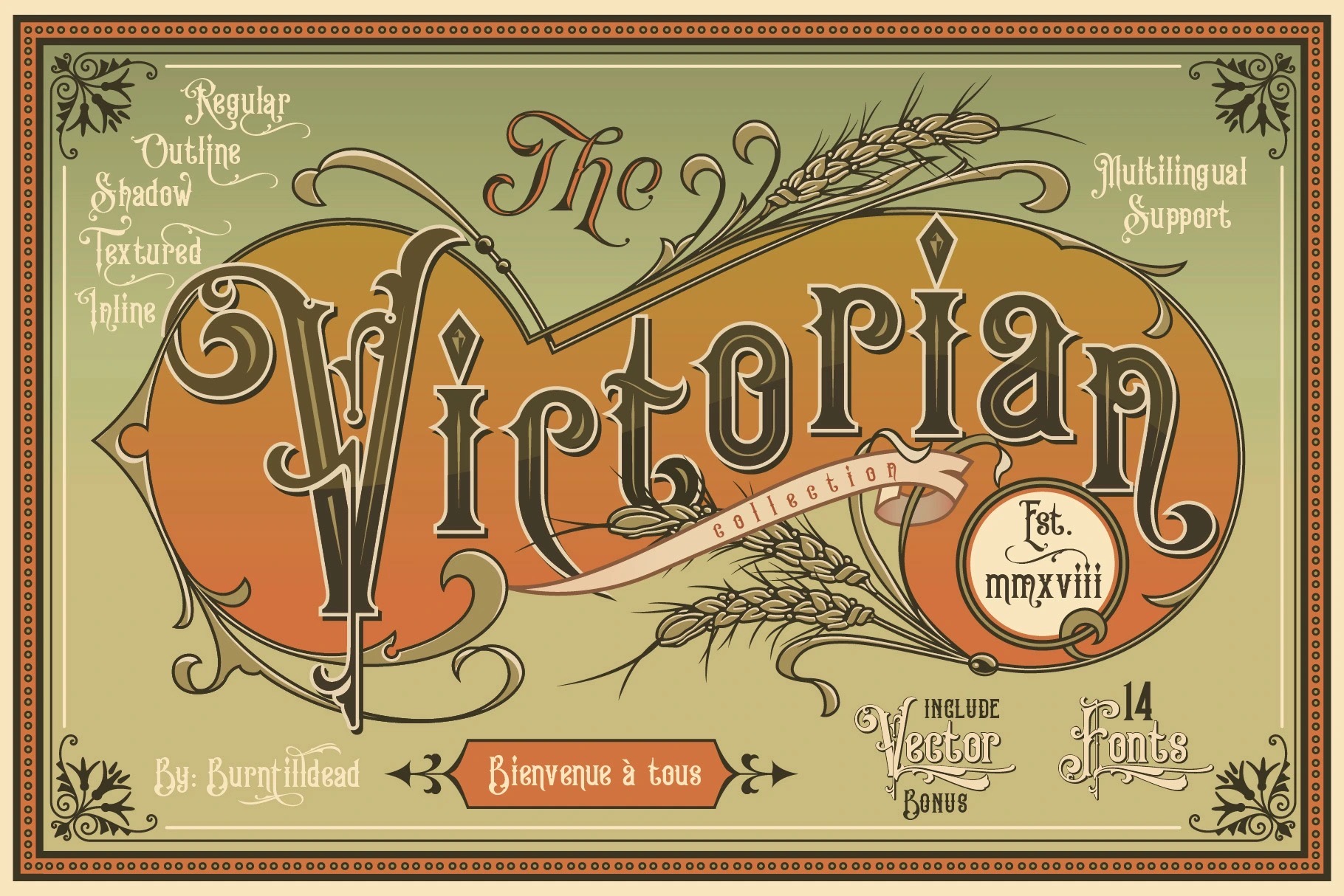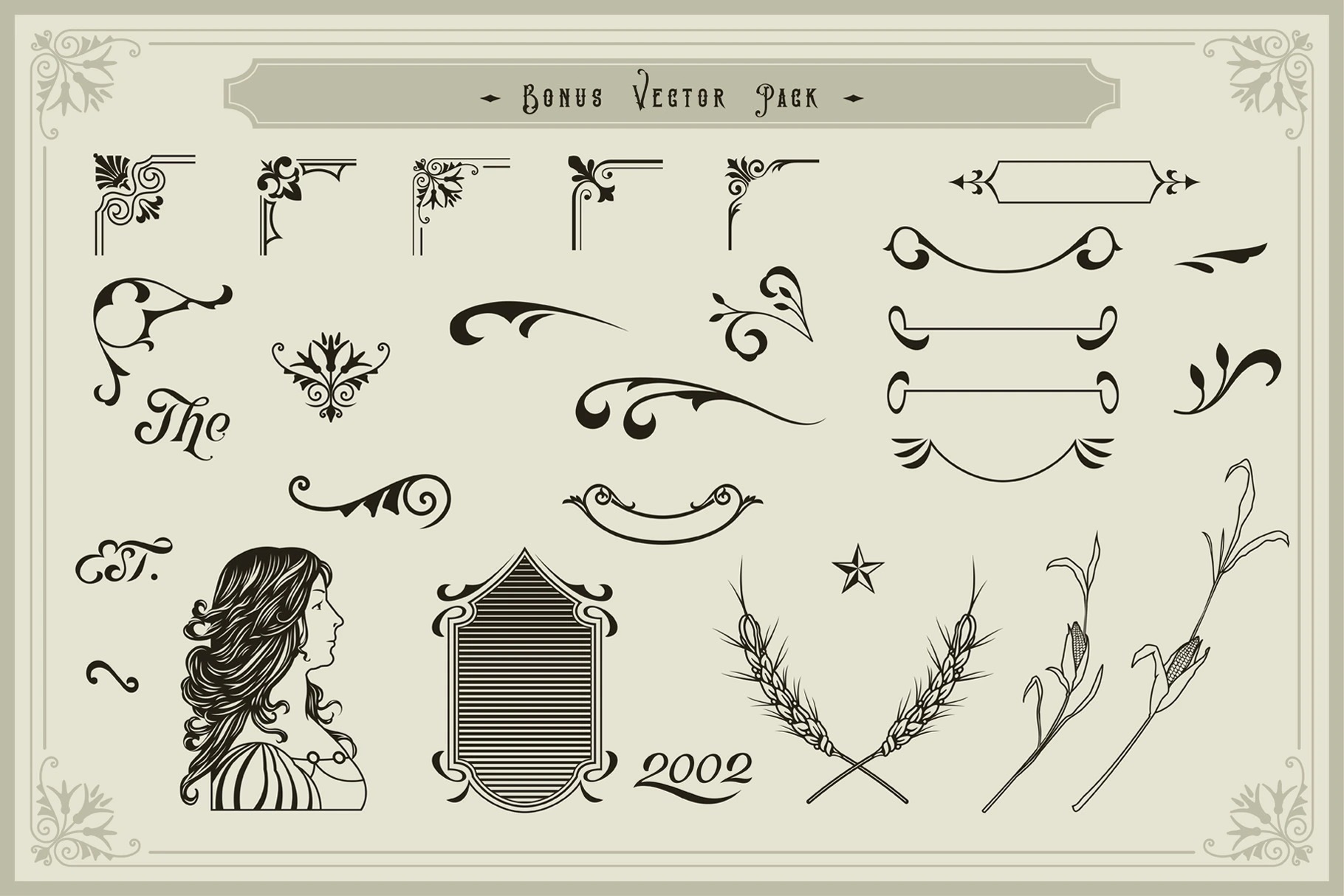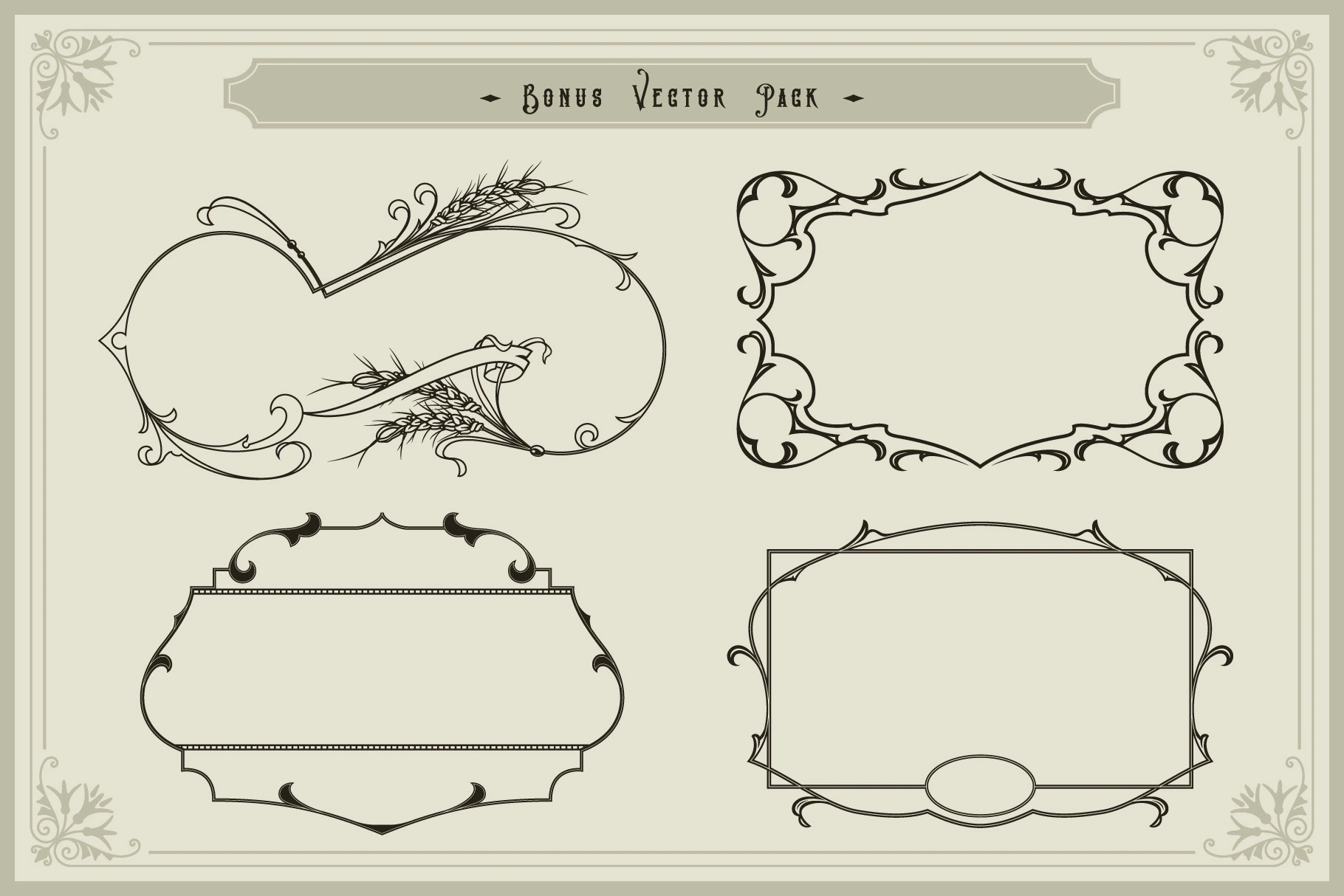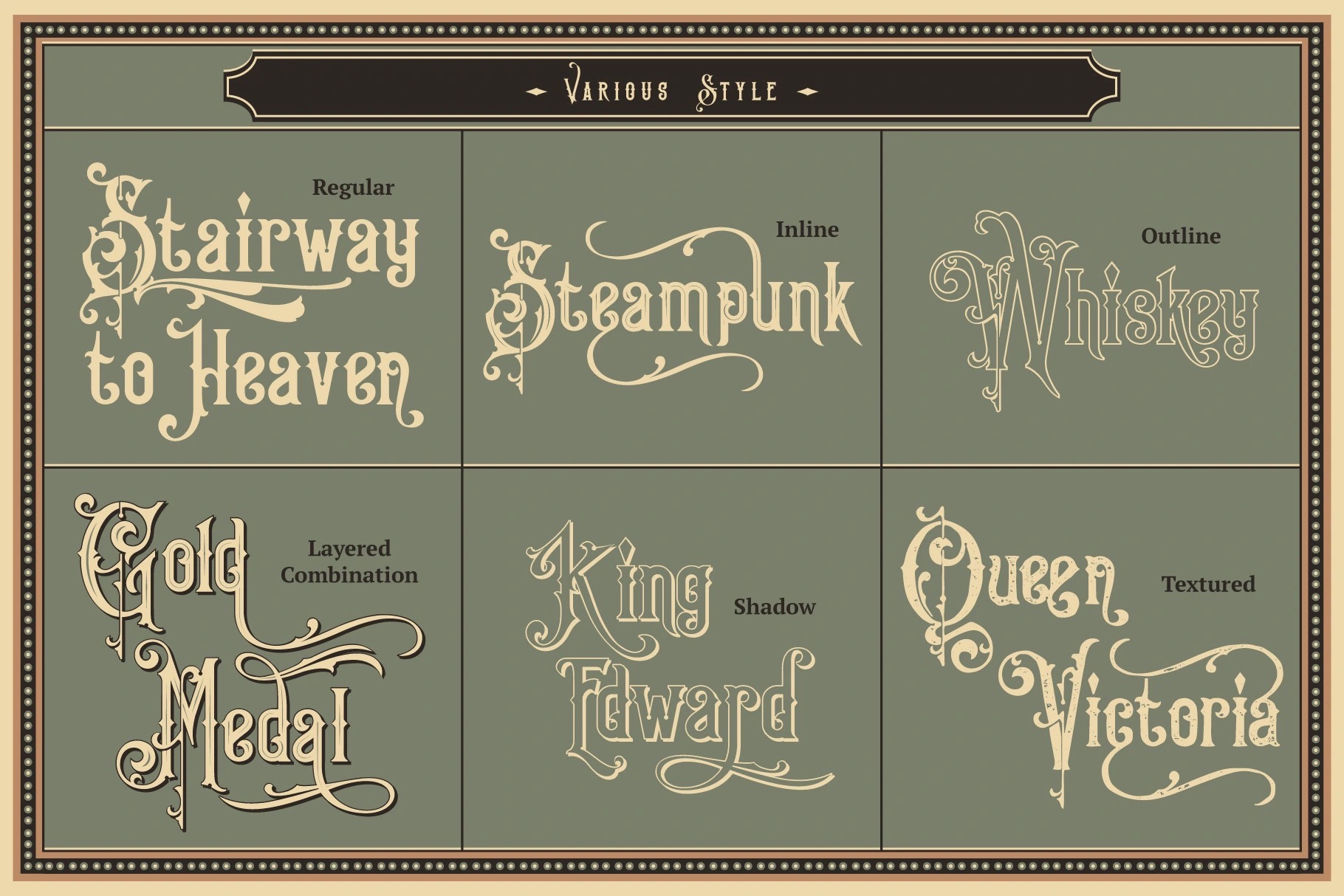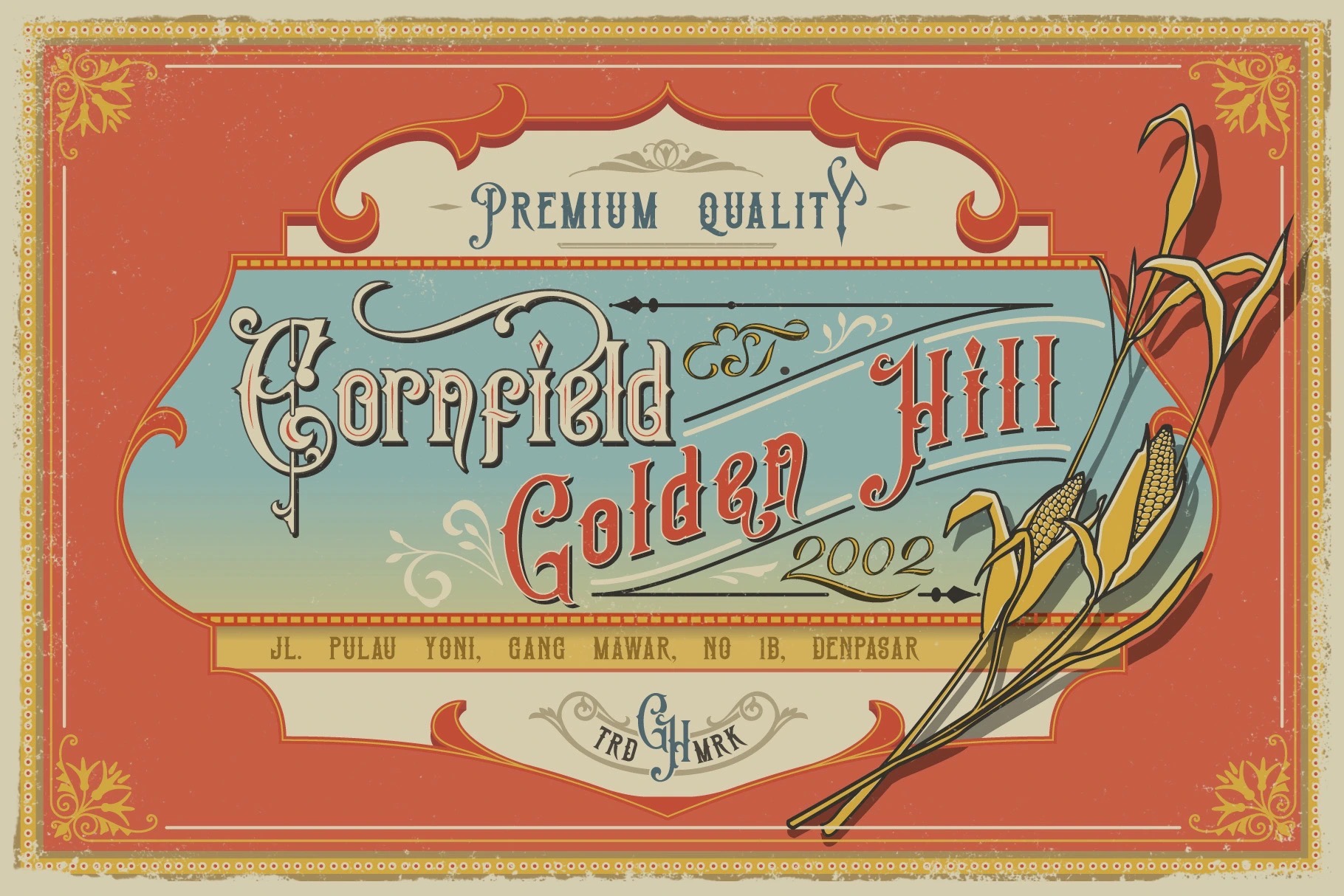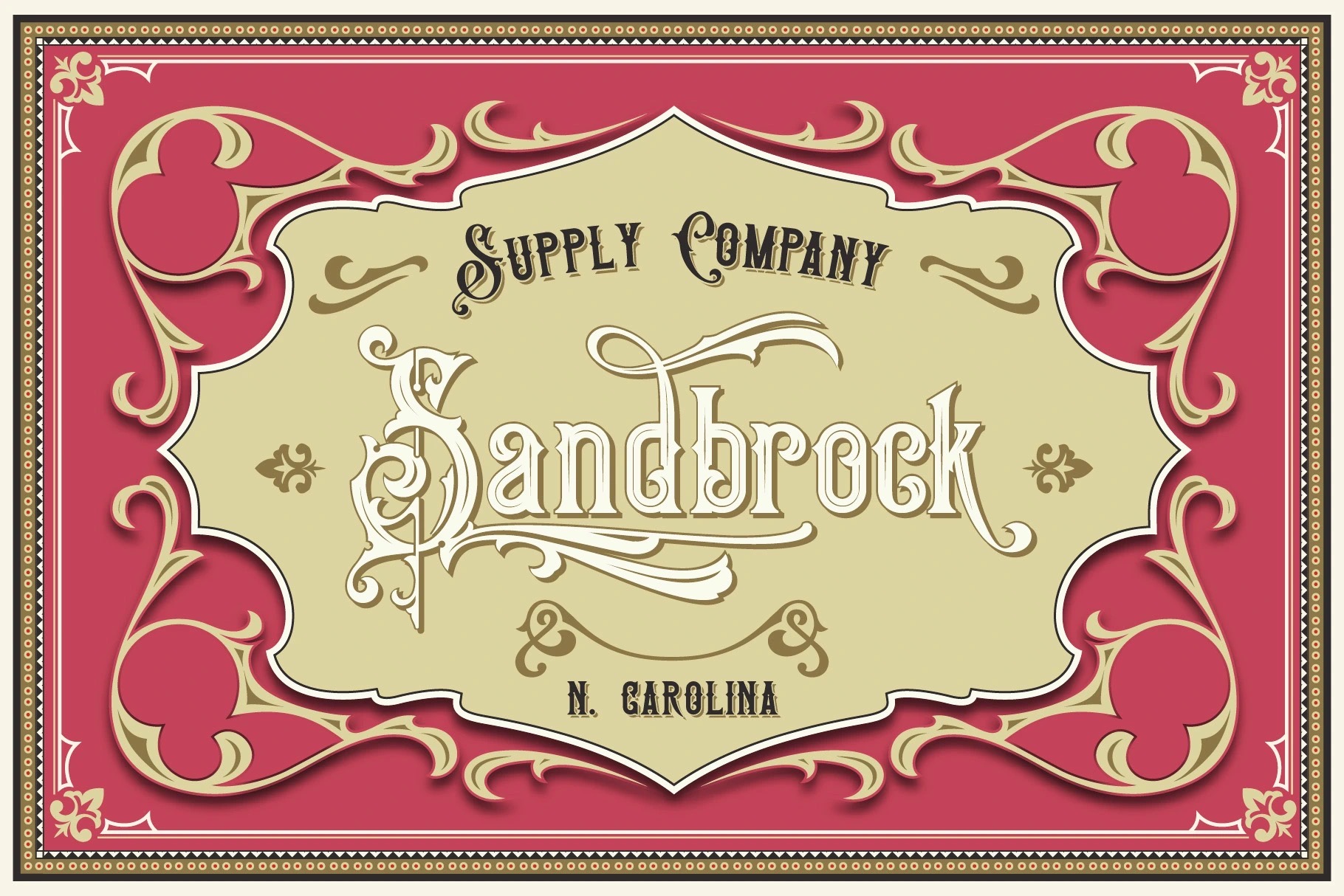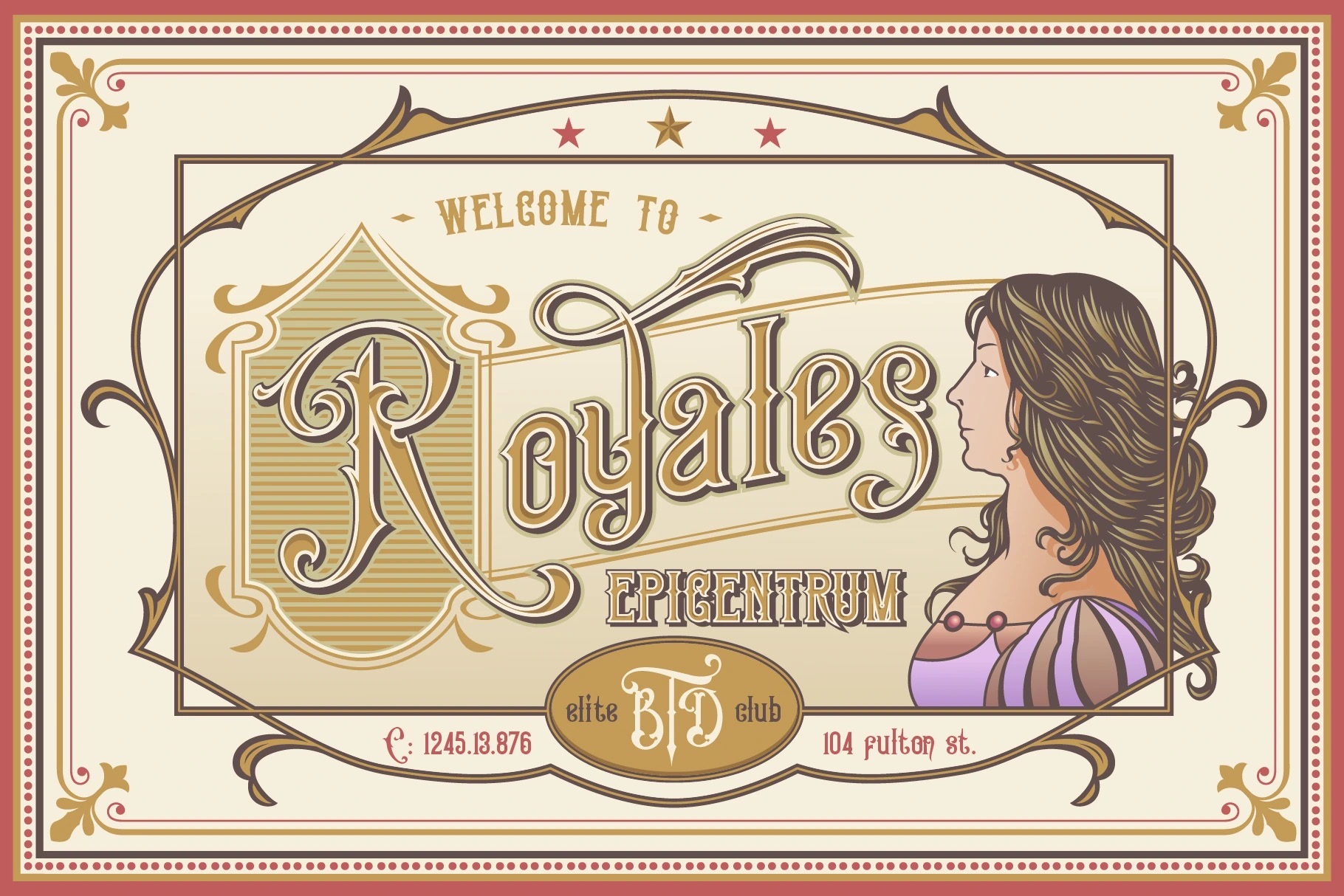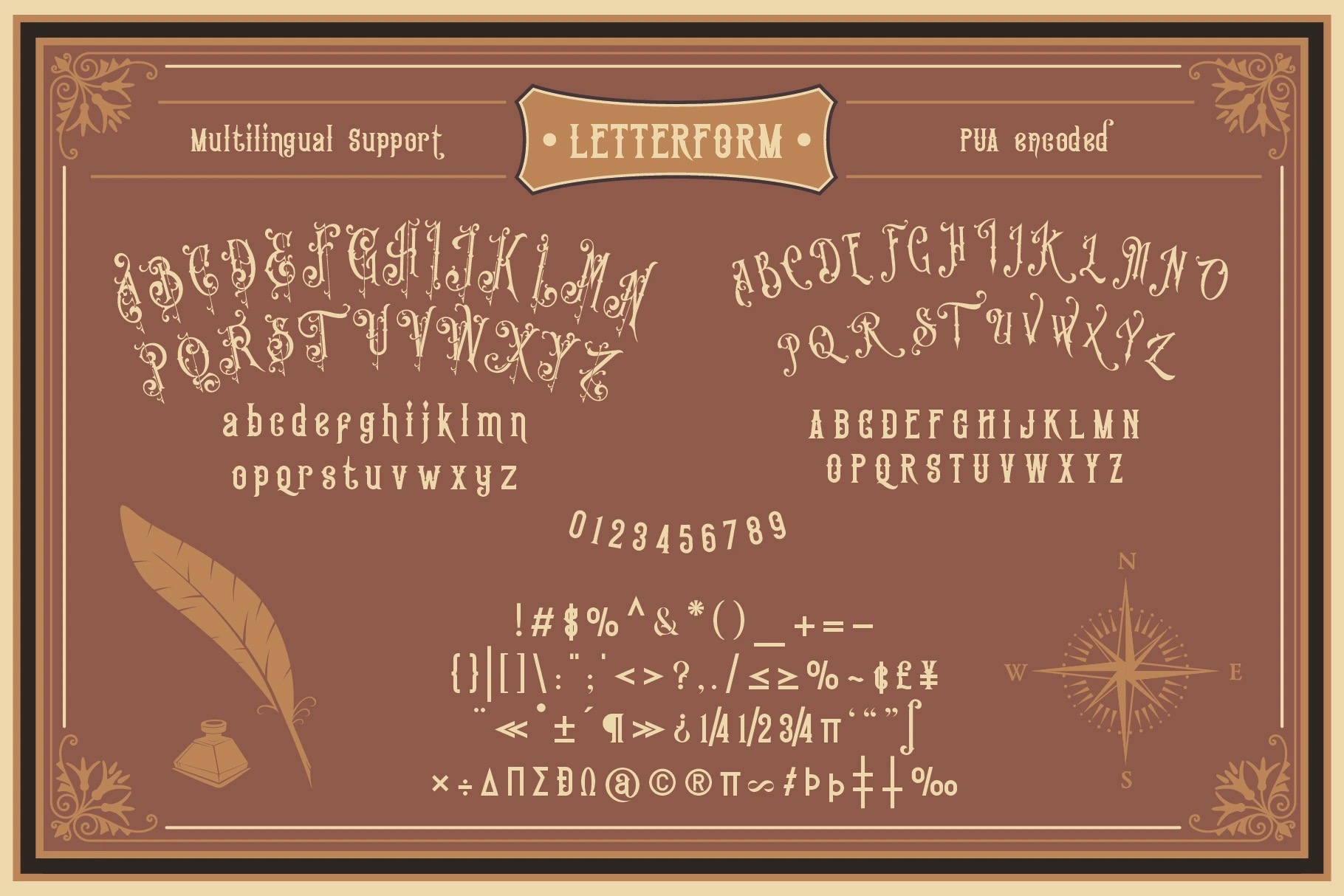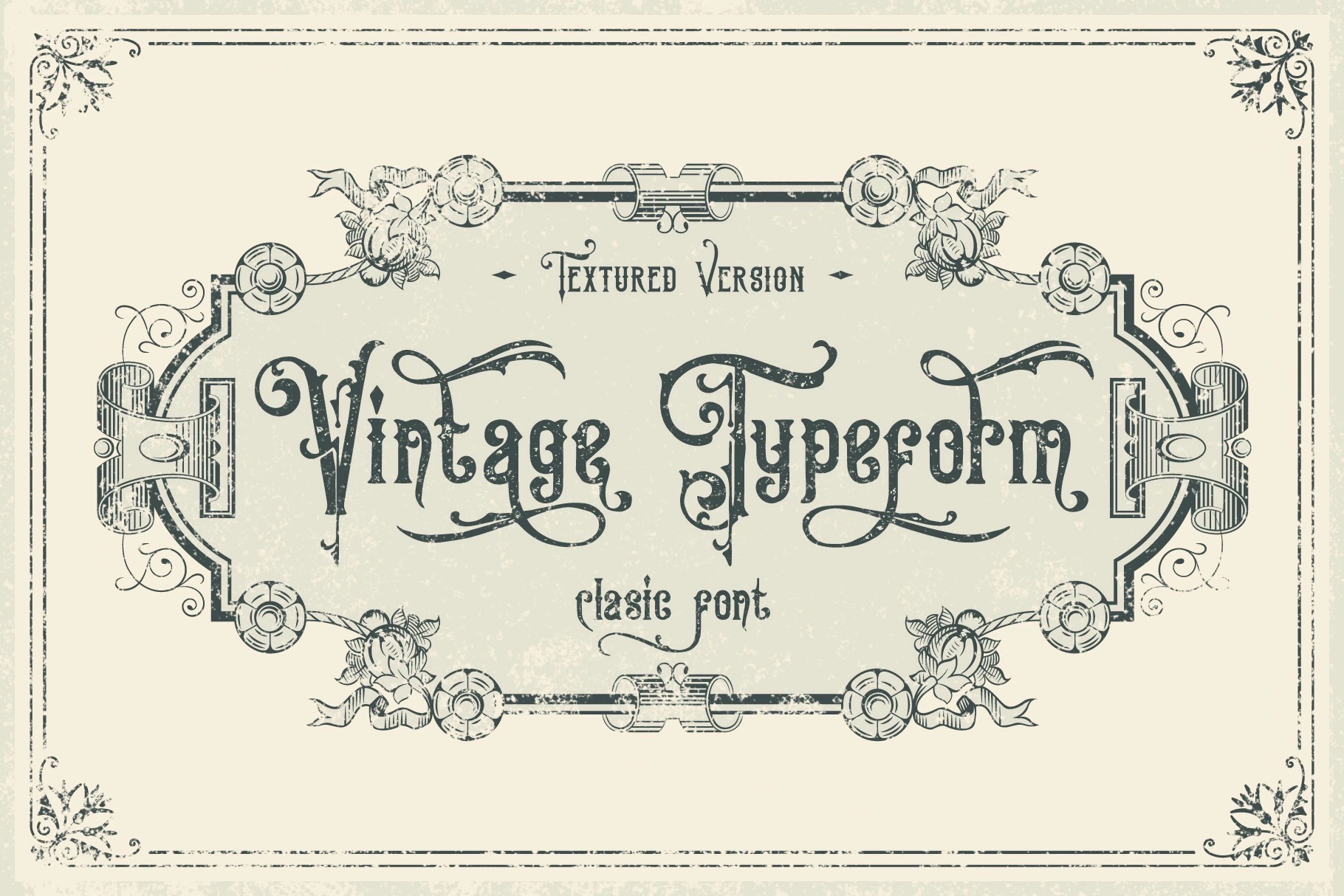
- Victorian Font Collection
Have you ever imagine to make layered Victorian logo as fast as you blink your eyes? or even make your document and website with victorian classical vibes? Abracadabra! Introducing you opentype font… King Edward and Queen Victoria fonts in one solid package.
Very victorian, ornamental, decorative and classical. A solid combination that can bring your design, logo, document, website, etc. back to 1800 decade. Multilingual fonts-family and playful one with 200 alternate characters.